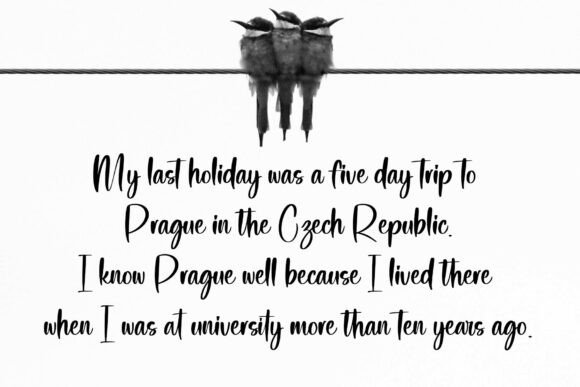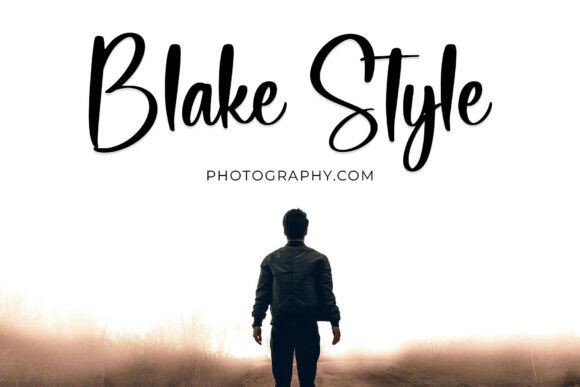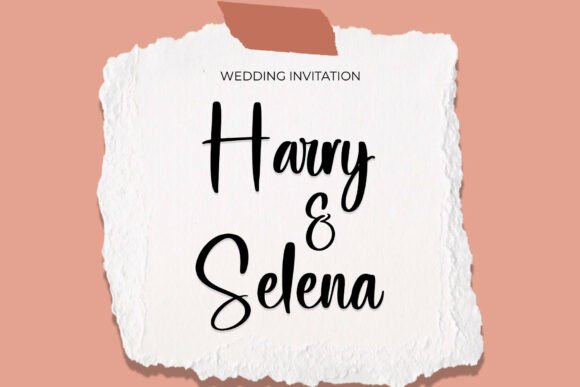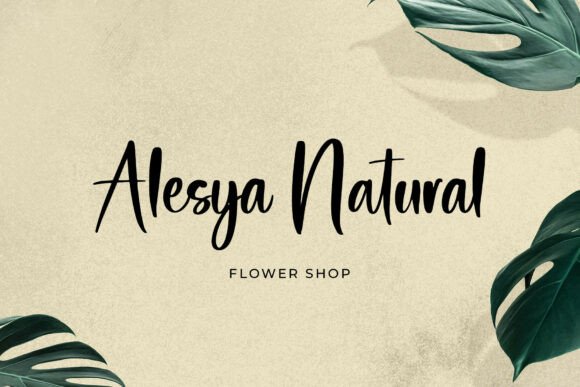
Introducing California Font: The Perfect Blend of Elegance and Casual Charm
Are you on the hunt for a font that exudes elegance, romance, and a touch of playfulness? Look no further than California Font, a sweet and cursive handwritten font that’s sure to elevate your designs to new heights. With its gentle curves and fluid lines, California Font is the perfect choice for designers and crafters looking to add a touch of sophistication and whimsy to their projects.
A Versatile Font for a Variety of Design Ideas
One of the best things about California Font is its versatility. Whether you’re working on a branding project, designing a logo, or creating wedding materials, this font is sure to shine. Its elegant yet casual vibe makes it perfect for a wide range of applications, including:
- Branding: Add a touch of personality to your brand with California Font’s unique and eye-catching style.
- Logo Design: Create a lasting impression with a logo that’s both elegant and memorable.
- Wedding Materials: Make your wedding designs truly special with a font that’s both romantic and sophisticated.
- Greeting Cards: Add a personal touch to your greeting cards with California Font’s warm and inviting style.
- Fashion: Elevate your fashion designs with a font that’s both stylish and chic.
- Lookbook: Create a stunning lookbook that showcases your designs in style.
- Marketing Promotion: Make your marketing materials stand out with a font that’s both elegant and attention-grabbing.
Why Choose California Font?
So why choose California Font over other fonts on the market? Here are just a few reasons why this font stands out:
- Elegant yet Casual: California Font strikes the perfect balance between elegance and casual charm, making it perfect for a wide range of design applications.
- Unique and Eye-Catching: With its gentle curves and fluid lines, California Font is sure to grab attention and leave a lasting impression.
- Versatile: Whether you’re working on a branding project or designing a greeting card, California Font is sure to fit the bill.
- Easy to Read: Despite its elegant style, California Font is easy to read and understand, making it perfect for body text and headlines.
Tips for Using California Font
Now that you know a little bit about California Font, here are some tips for using it in your designs:
- Pair it with Other Fonts: California Font pairs perfectly with other fonts, so don’t be afraid to experiment with different combinations.
- Use it for Headlines and Body Text: California Font is easy to read, making it perfect for both headlines and body text.
- Experiment with Colors: California Font looks great in a variety of colors, so don’t be afraid to experiment and find the perfect hue for your design.
- Use it for Digital and Print Designs: California Font is perfect for both digital and print designs, making it a versatile addition to your font library.
In conclusion, California Font is a sweet and cursive handwritten font that’s sure to elevate your designs to new heights. With its elegant yet casual vibe, versatility, and ease of use, this font is perfect for designers and crafters looking to add a touch of sophistication and whimsy to their projects. Whether you’re working on a branding project, designing a logo, or creating wedding materials, California Font is sure to shine. So why wait? Download California Font today and start creating stunning designs that will leave a lasting impression!